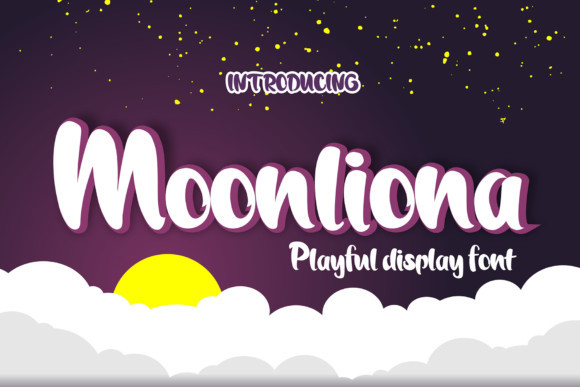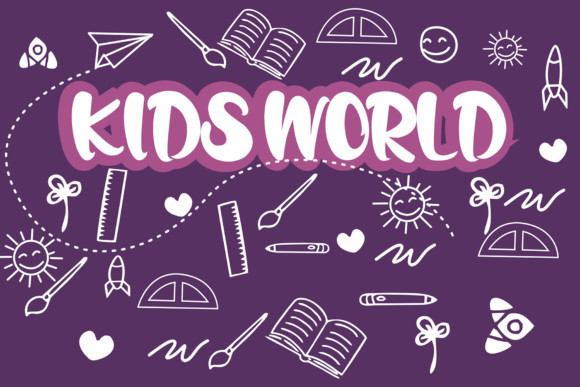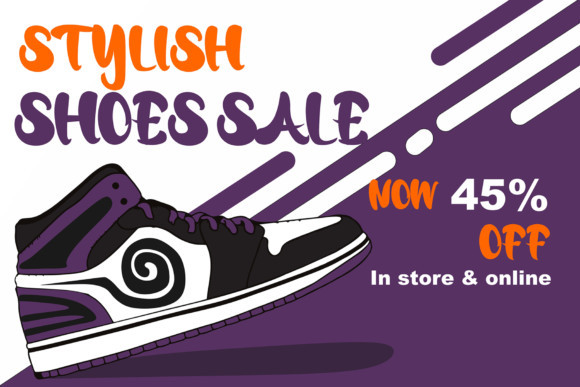
Moonliona Font
Moonliona is a playful display font, carefully handcrafted to become a true favorite. This font will look outstanding in any context, whether it’s being used on busy backgrounds or as a standalone headline!